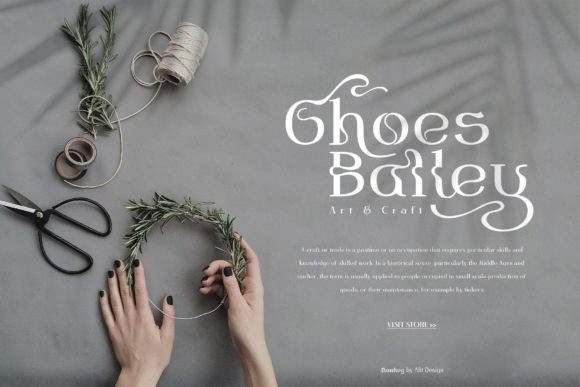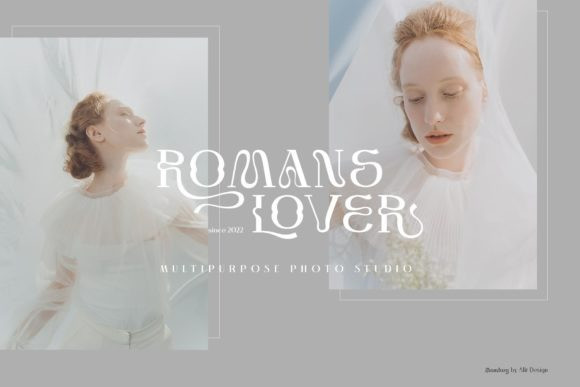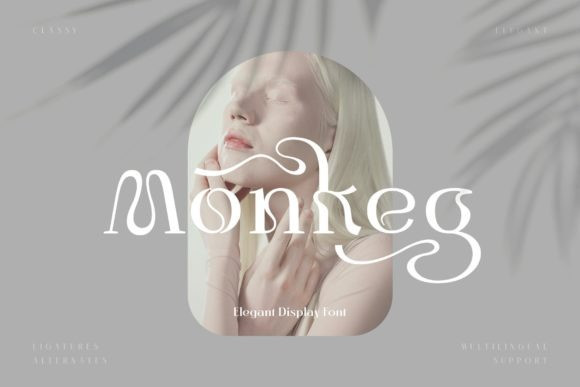
Monkeg Font
Monkeg Typeface is made with the concept of a modern font display that gives a unique impression because it has a curvy shape like waves that is charming and unique. This font is PUA encoded which means you can access all of the amazing glyphs and ligatures with ease!